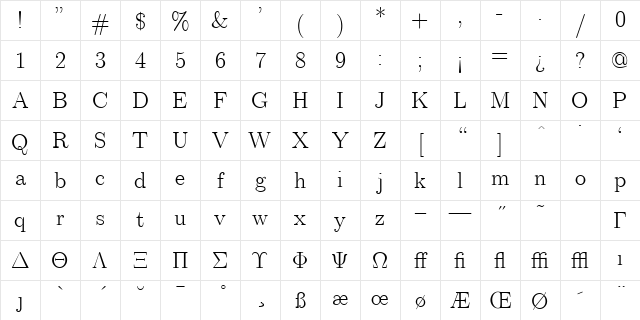
cmr17 Regular
Design Context for cmr17
cmr17 is a composed and adaptable typeface that performs quietly and consistently across a wide range of design contexts.